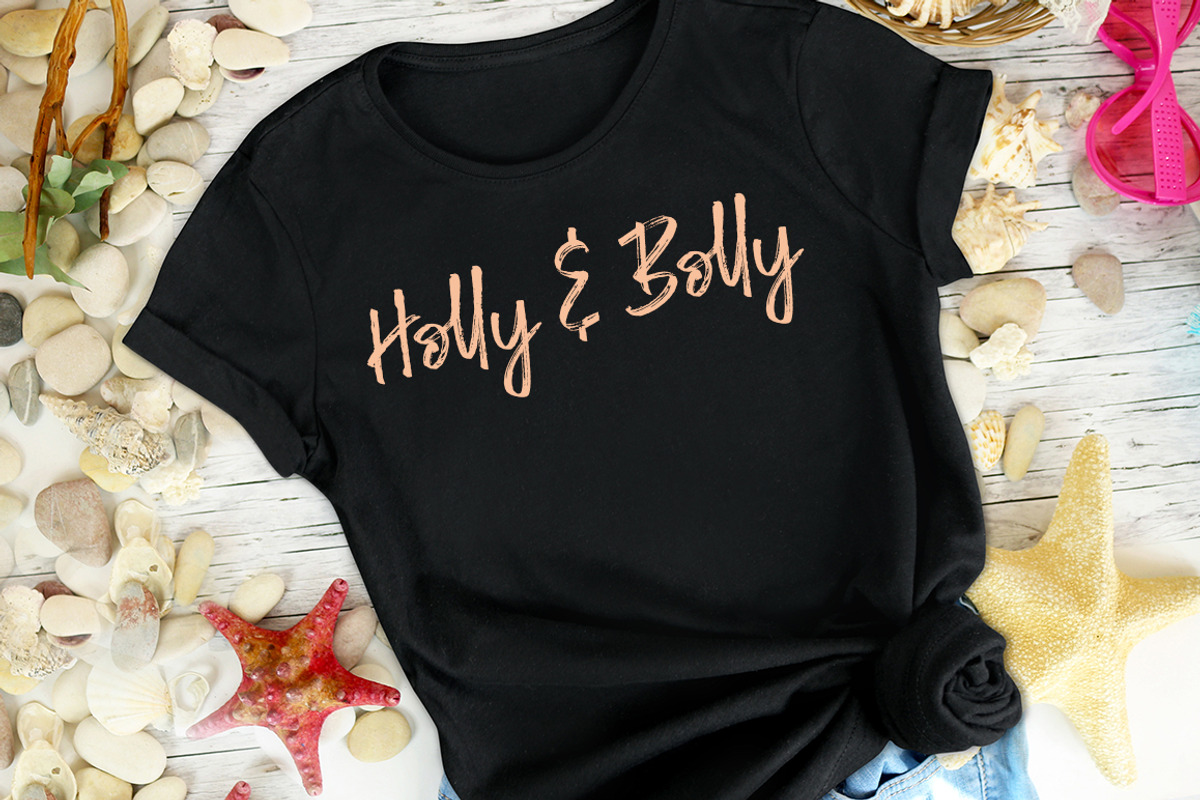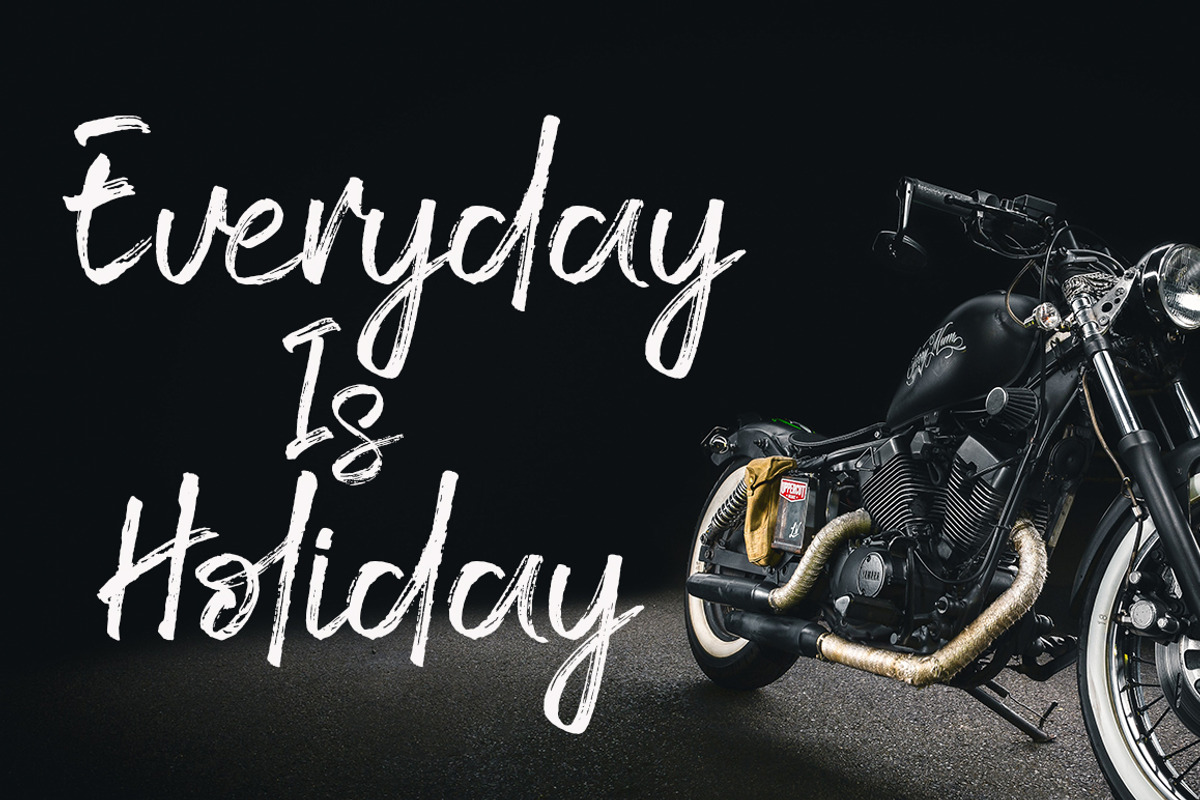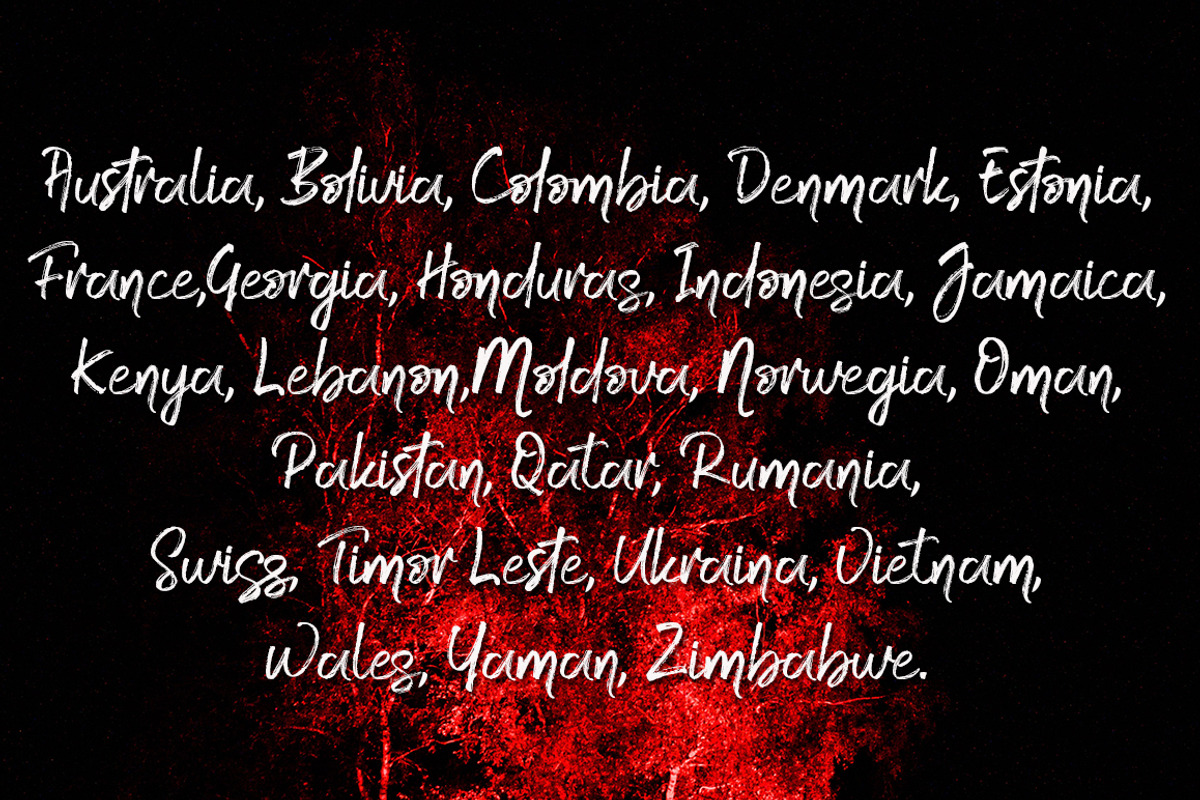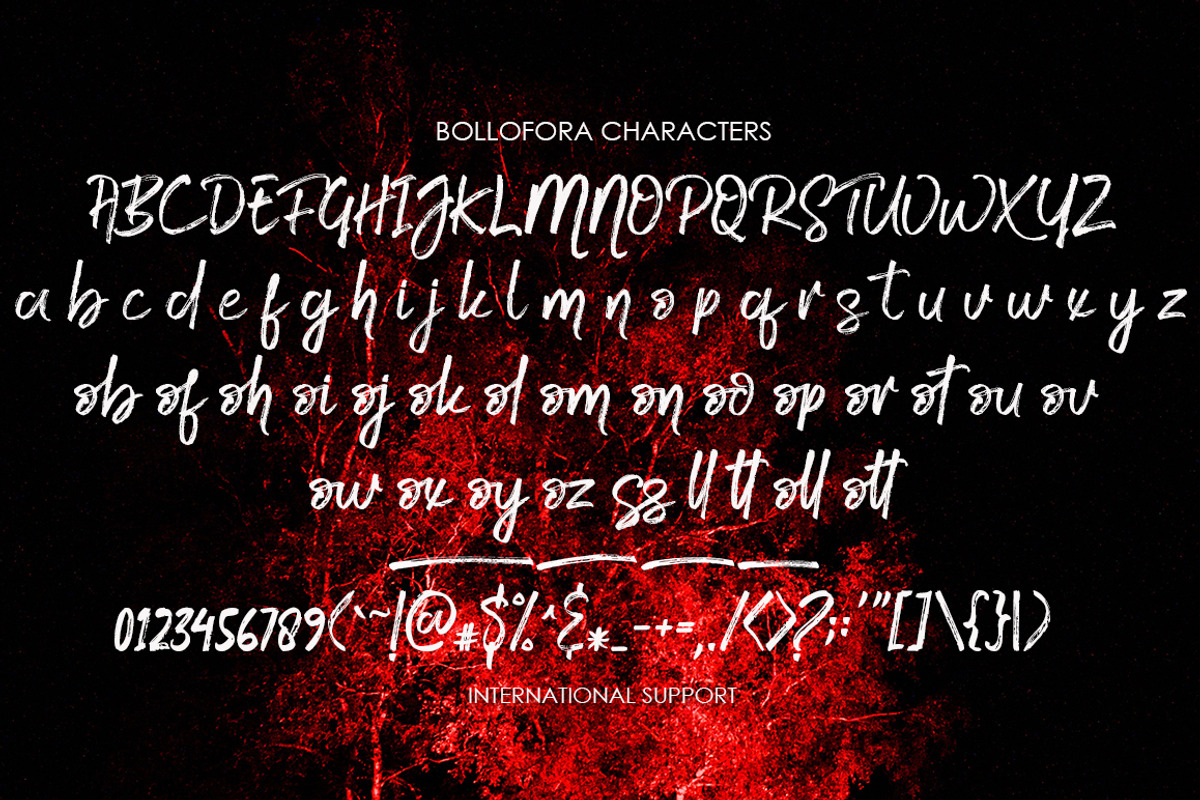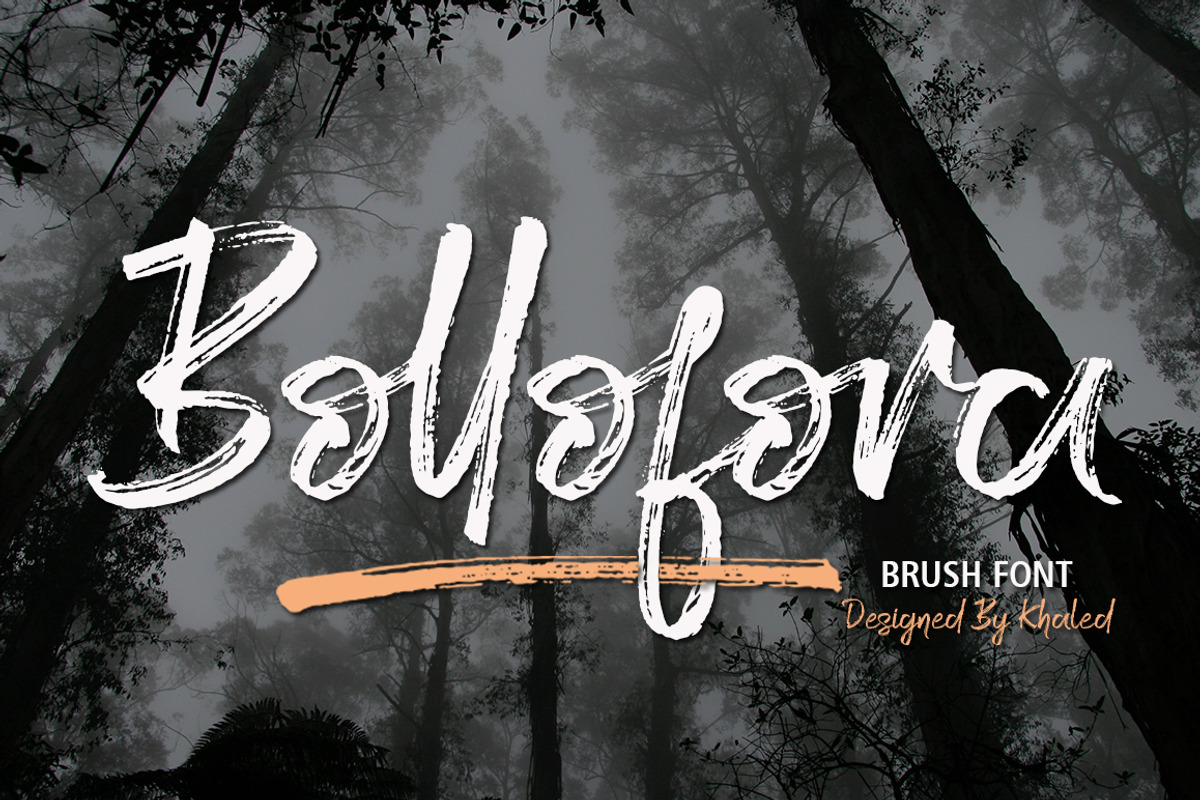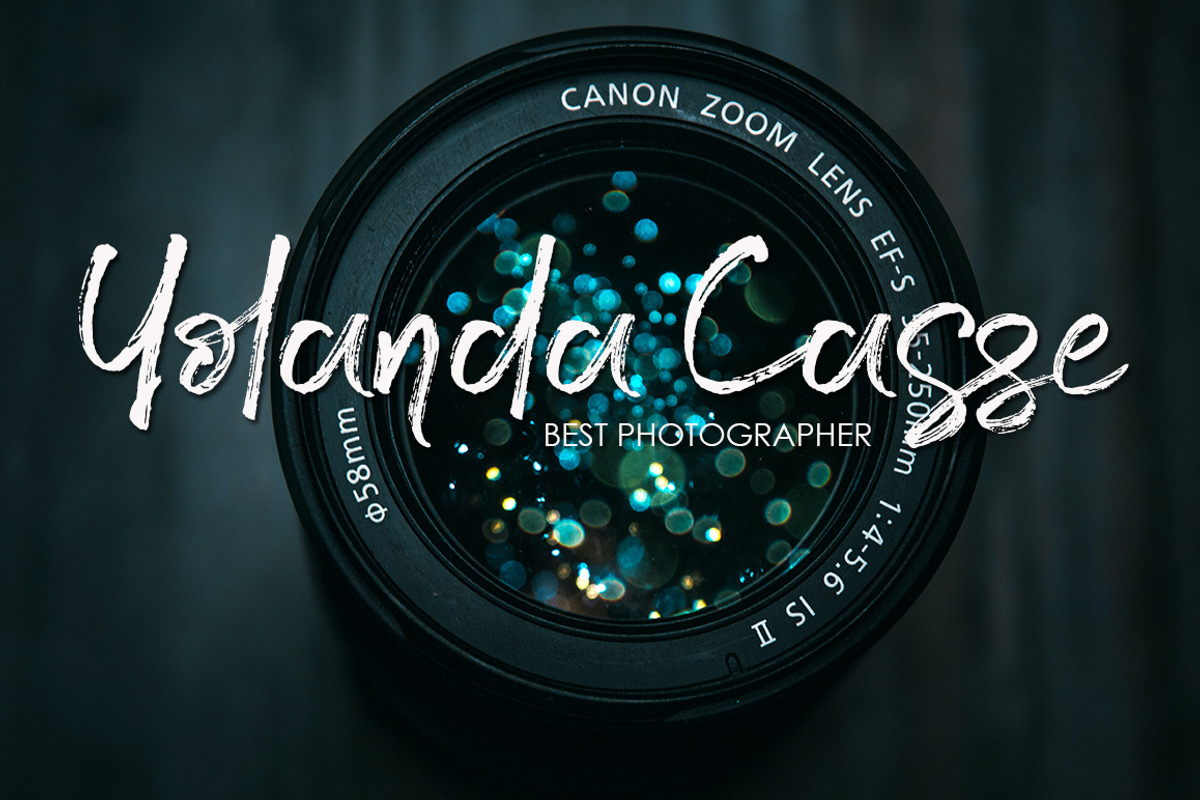
Bollofora - Brush Font
Bollofora is a new modern brush font with an irregular baseline, a contemporary approach to design, handmade natural and suitable for use in title design such as clothing, invitations, book titles, stationery designs, quotes, branding, logos, T-shirts, packaging designs, posters, and more.Complete with uppercase and lowercase letters, as well as multi-lingual support, numbers, punctuation, Kailash also provides some ligatures and swash.